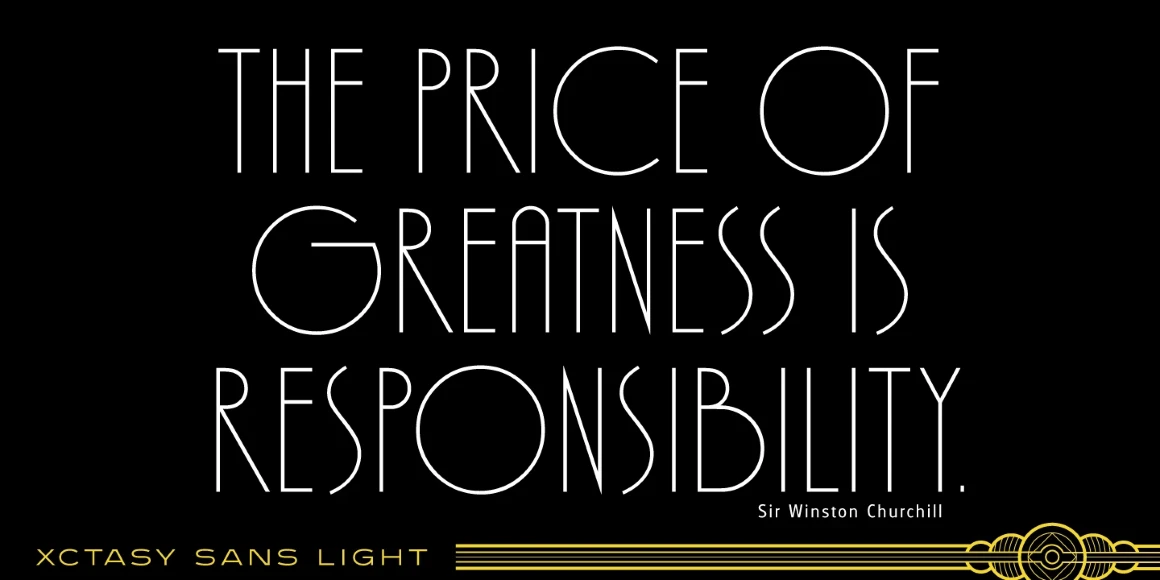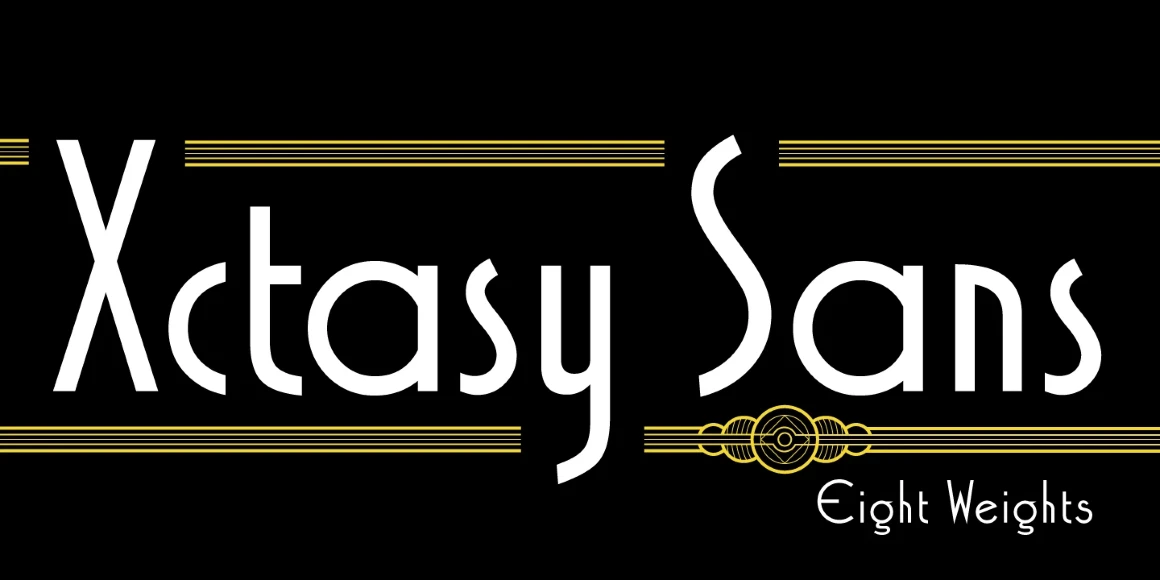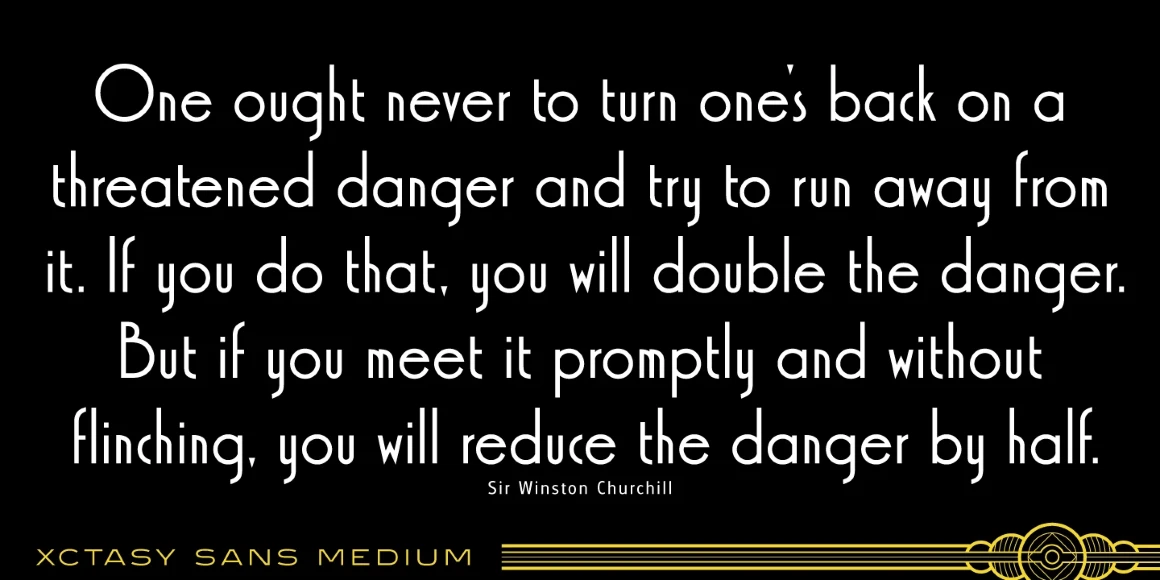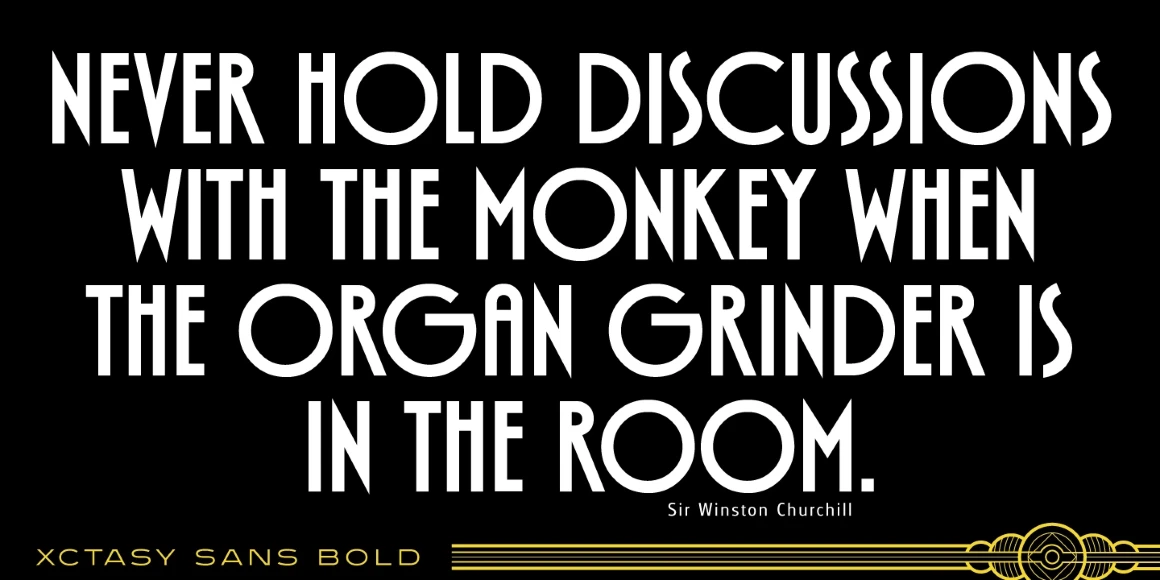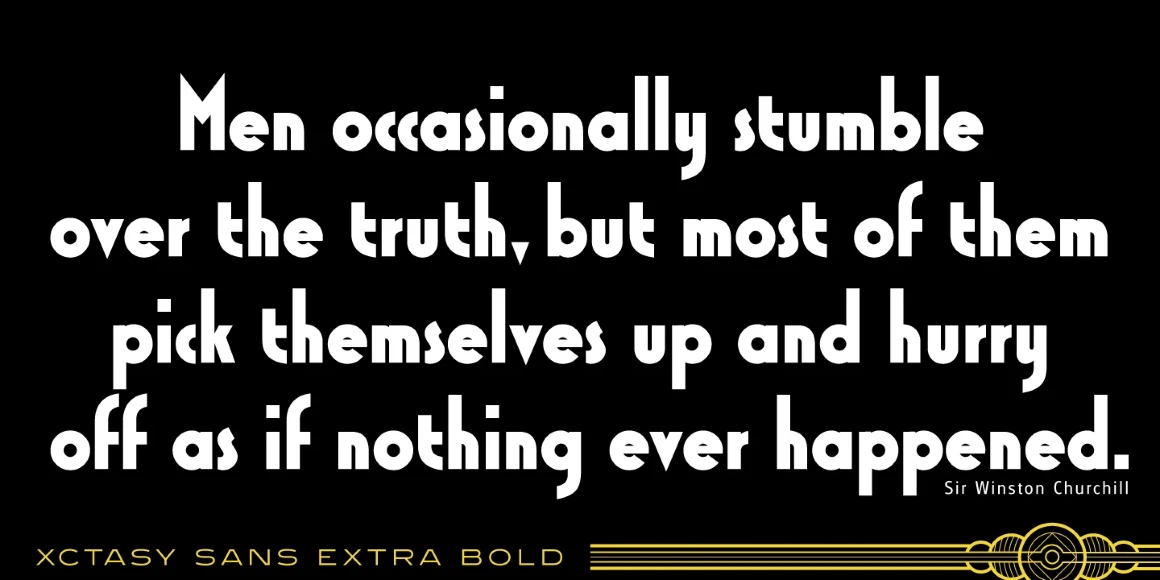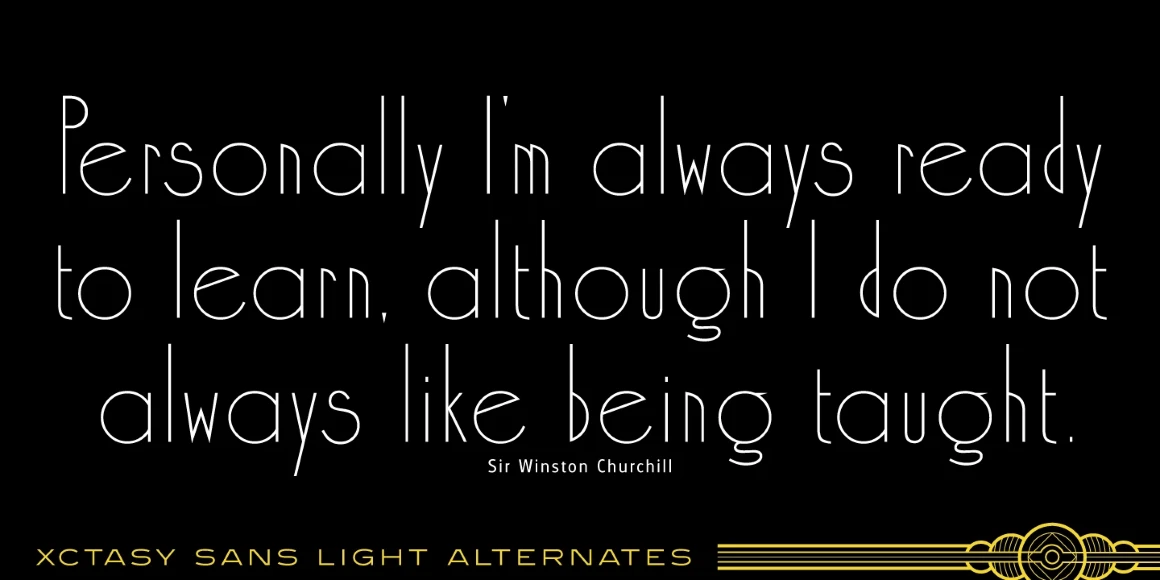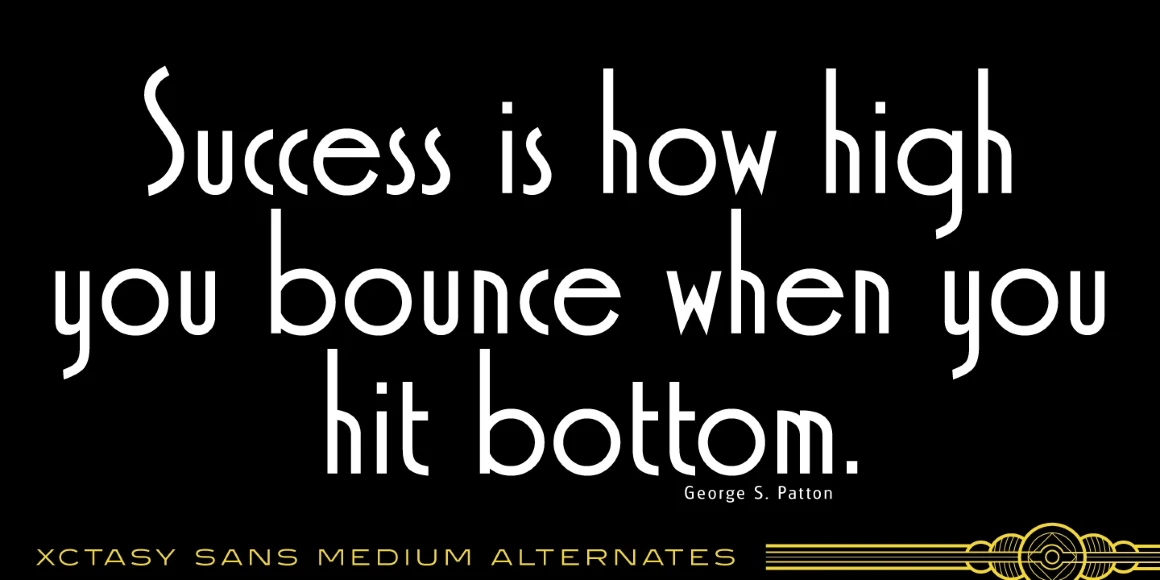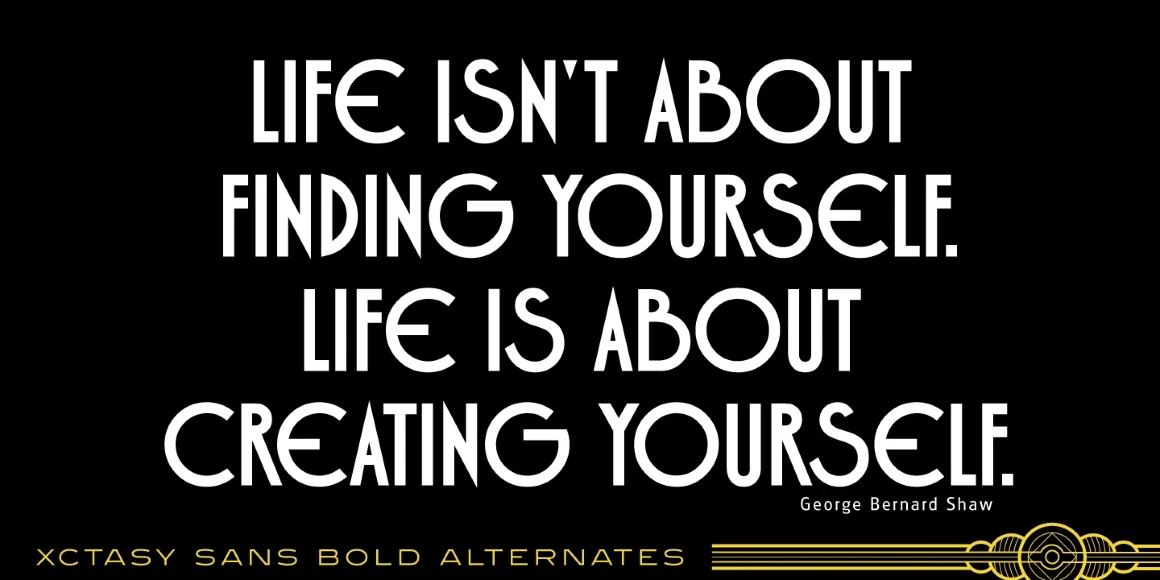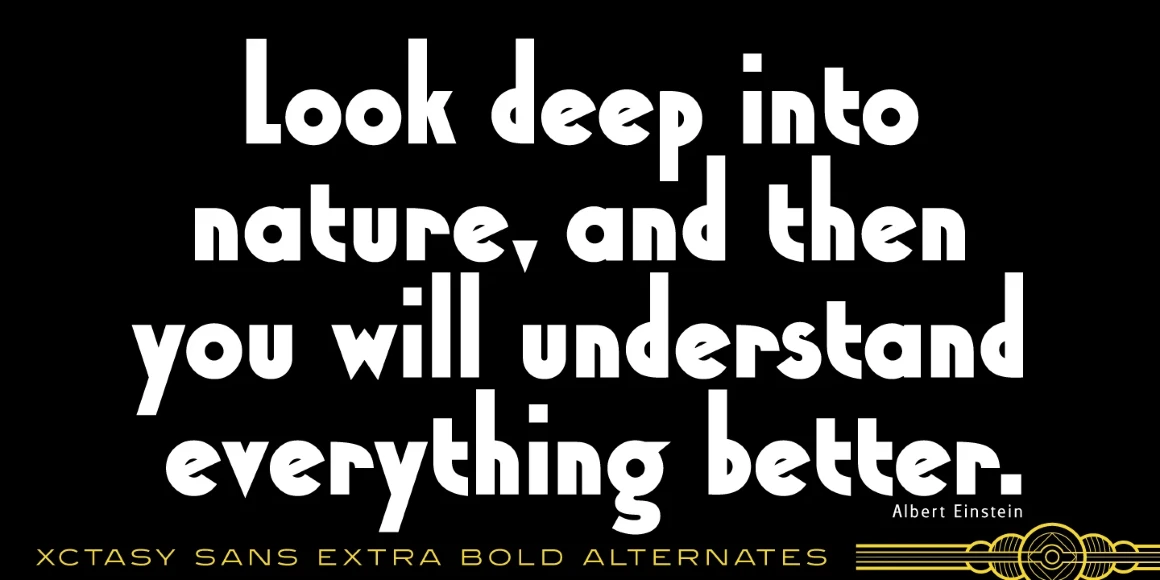
Xctasy Sans
Xctasy Sans is a sans serif font family designed by Steve Jackaman in 1997 exclusively for ITF’s Red Rooster Collection. Its design is semi-Bauhaus, geometric, and loosely influenced by the 1960’s typeface ‘Design Fineline.’ Xctasy Sans’ design evokes feelings of the roaring 20’s and the Art Deco style that originated in Paris.